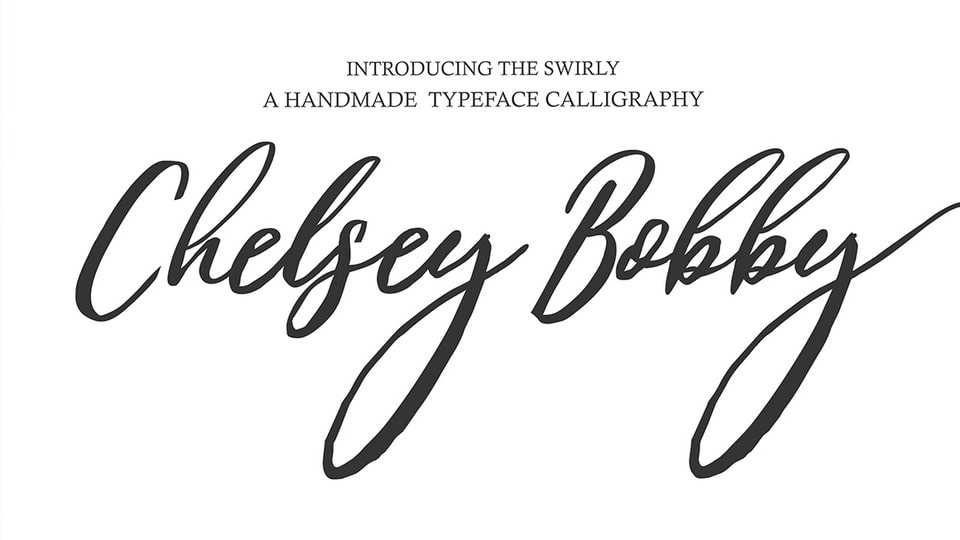
Download Chelsey Bobby font, an original handwritten simple script, the newest you can get now! With an updated hand calligraphy model with special glyphs that have been given a combination of fantasy and handwritten ink.